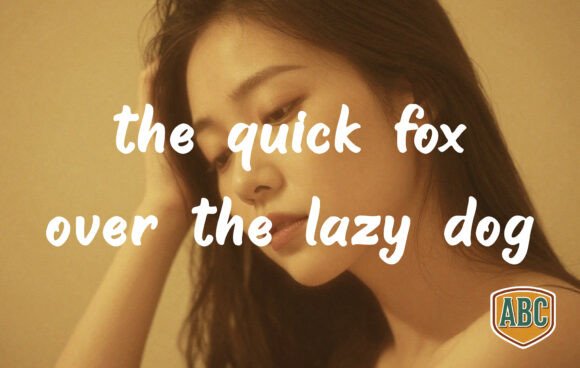
Introducing the Goldenrod Font: A Breezy and Upbeat Typeface for Your Designs
Are you looking for a font that can infuse your designs with a sunny and carefree energy? Look no further than the Goldenrod font, a casual brush script typeface that’s perfect for creating eye-catching and playful designs. With its thick, juicy strokes and subtle bounce, this font is ideal for summer-themed promotions, travel vlogs, and greeting cards that require a friendly and approachable tone.
The Characteristics of the Goldenrod Font
The Goldenrod font features thick, juicy strokes with a subtle bounce, giving it a dynamic and lively feel. The friendly, rounded ends of the font add a soft and approachable look, making it perfect for designs that require a personal touch. The font’s casual and breezy energy makes it ideal for designs that need to evoke a sense of fun and playfulness.
Uses for the Goldenrod Font
The Goldenrod font is incredibly versatile and can be used for a wide range of design projects. Here are some ideas to get you started:
- Summer-themed promotions: Use the Goldenrod font to create eye-catching posters, social media graphics, and advertisements that capture the spirit of summer.
- Travel vlogs: Add a personal touch to your travel vlogs with the Goldenrod font, perfect for creating fun and engaging titles and captions.
- Greeting cards: The Goldenrod font is ideal for creating playful and friendly greeting cards for special occasions like birthdays, weddings, and holidays.
- Logo marks: Use the Goldenrod font to create vibrant and eye-catching logo marks for your lifestyle brand.
- Quotes and typography: Create inspiring and motivational quotes with the Goldenrod font, perfect for social media graphics, posters, and blog posts.
Design Tips and Pairing Suggestions
The Goldenrod font pairs beautifully with simple line icons and bright, saturated colors, making it easy to create stunning designs that pop. Here are some design tips and pairing suggestions to help you get the most out of this amazing font:
- Pair with simple line icons: The Goldenrod font looks great when paired with simple line icons, adding a touch of elegance and sophistication to your designs.
- Use bright and saturated colors: The Goldenrod font loves bright and saturated colors, making it perfect for designs that require a bold and eye-catching look.
- Add a personal touch: Use the Goldenrod font to add a personal touch to your designs, making them feel more approachable and friendly.
The Benefits of Using the Goldenrod Font
The Goldenrod font offers a range of benefits for designers and crafters, including:
- Unique and eye-catching designs: The Goldenrod font helps you create unique and eye-catching designs that stand out from the crowd.
- Flexibility: The Goldenrod font is incredibly versatile and can be used for a wide range of design projects.
- Professional digital polish: The Goldenrod font offers a perfect balance of “hand-painted” charm and professional digital polish, making it perfect for any creative endeavor.
In conclusion, the Goldenrod font is a breezy and upbeat typeface that’s perfect for infusing your designs with a sunny and carefree energy. With its thick, juicy strokes and subtle bounce, this font is ideal for summer-themed promotions, travel vlogs, and playful greeting cards. Its friendly and approachable look makes it perfect for designs that require a personal touch. So why not give the Goldenrod font a try and see how it can elevate your designs to the next level?